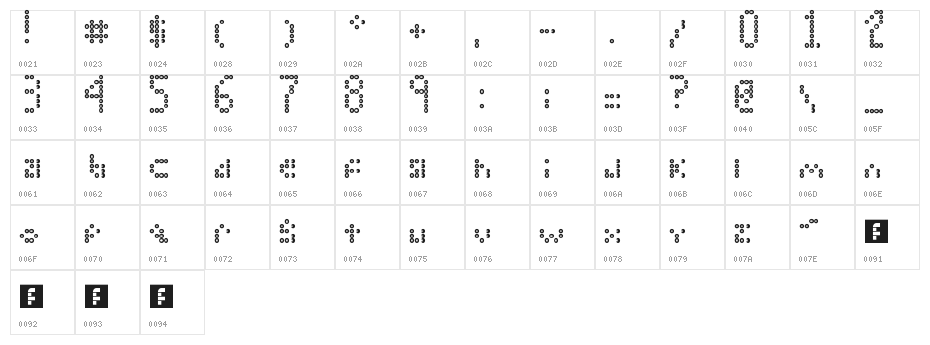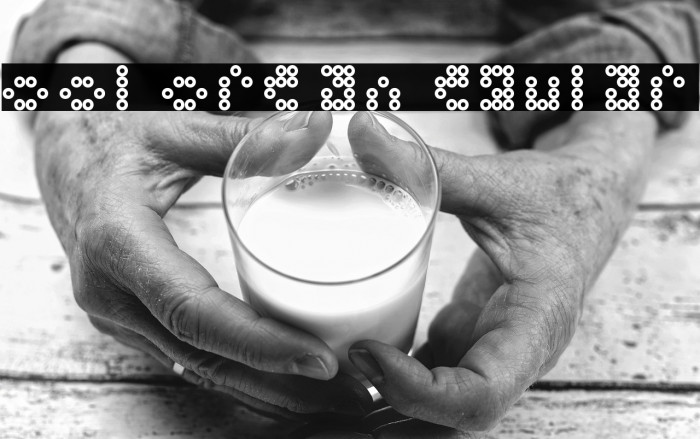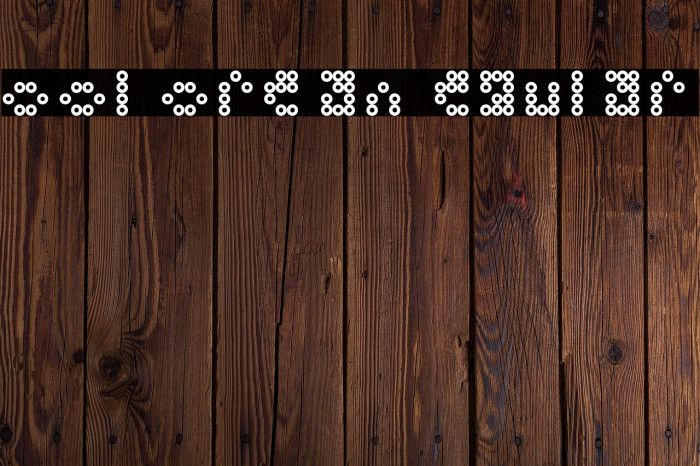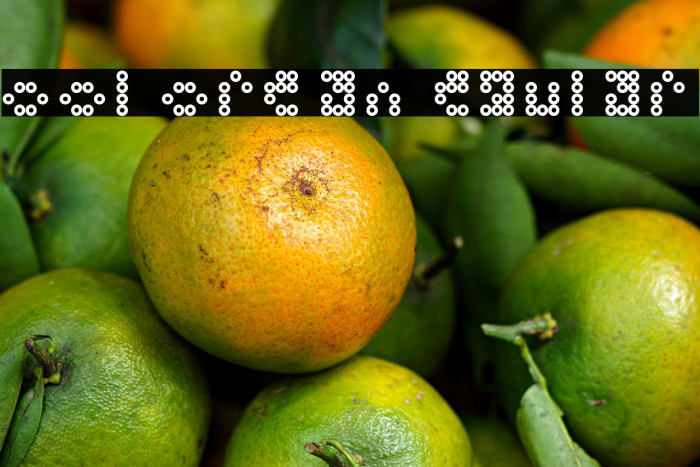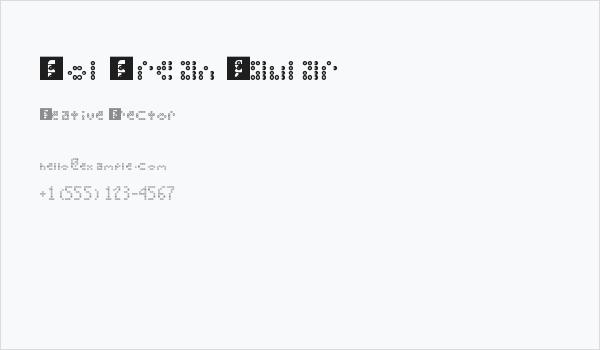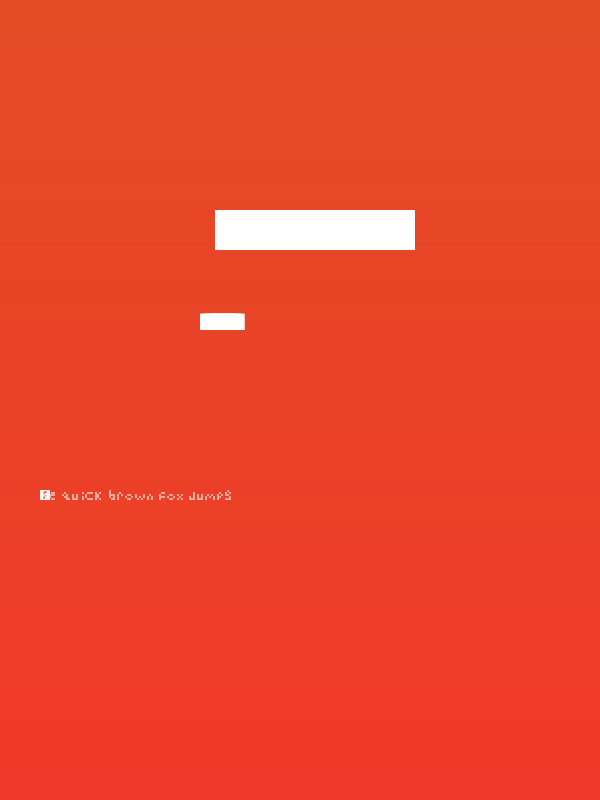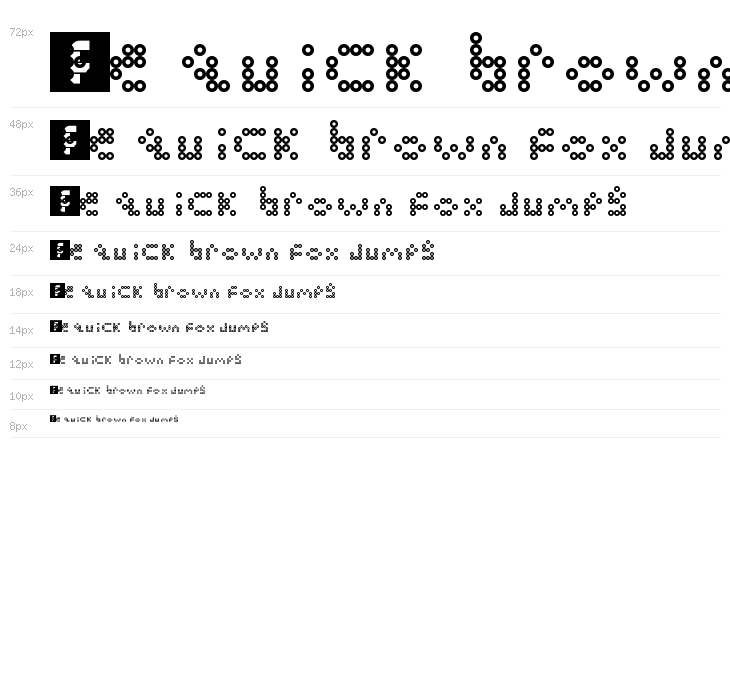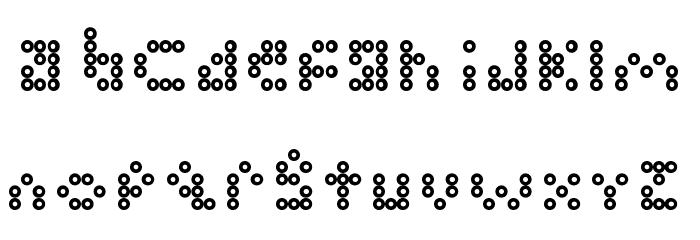
Kool Korean Regular Font
Kool Korean Regular Description
This font features a unique and playful design composed entirely of small circles arranged to form each character. The circular elements give it a dotted, almost pixelated appearance, which adds a whimsical and modern touch. The characters are evenly spaced, maintaining a consistent rhythm across both uppercase and lowercase letters, as well as numbers and special symbols. This font's distinct style makes it stand out, offering a fresh take on traditional typography with its innovative use of geometric shapes.
| Use Case | Logos, Posters, Creative projects |
| Proposed Projects | Ideal for creative projects such as children's books, playful branding, modern art posters, and digital media where a fun and unique typeface is desired. |